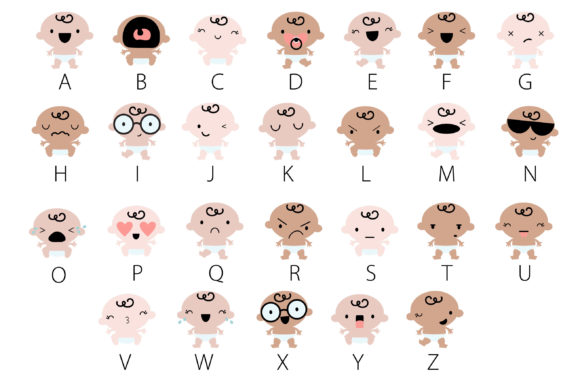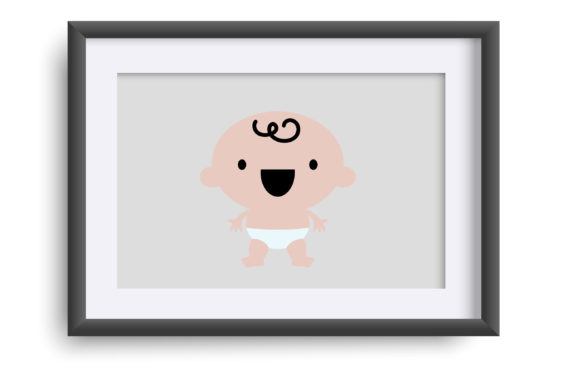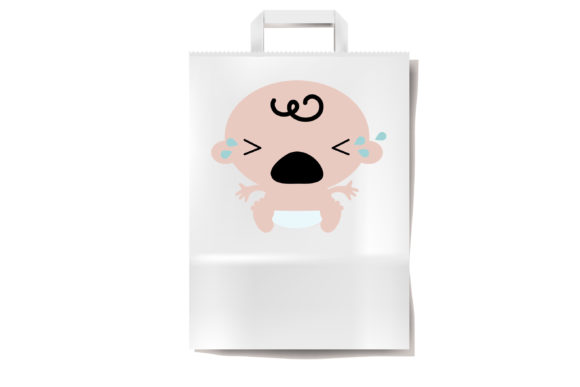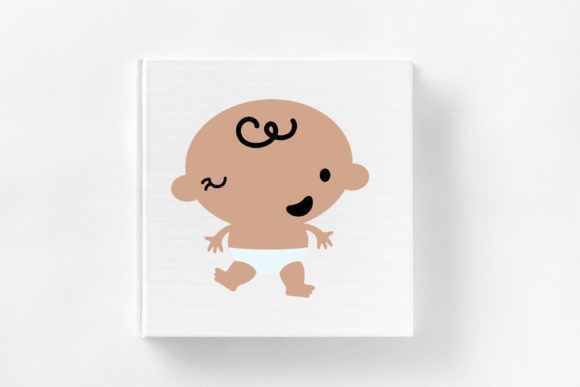
Pipsqueaks Font
About Pipsqueaks Font
This full-color dingbat font showcases adorable babies expressing a range of emotions.
With this full-color dingbat font, you can add a touch of cuteness and playfulness to your projects, whether it’s designing baby shower invitations, creating nursery-themed artwork, or adding expressive elements to your designs. Let the range of baby emotions inspire and enhance your creative endeavors.